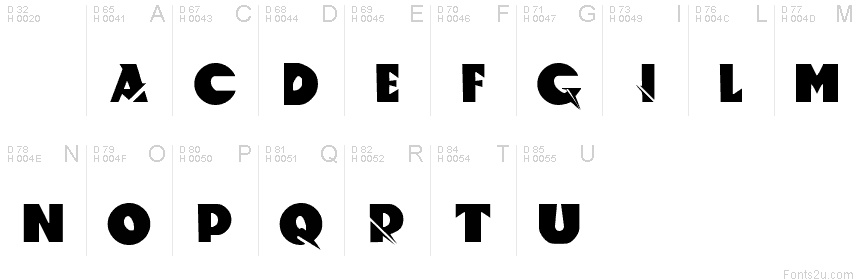
ACCELERATOR
Accelerator font by SnatchSoft is a free techno display typeface that looks like it’s been cut out of matte metal at full throttle. Chunky letterforms are slashed with sharp diagonal cuts that slice through the black shapes, creating a sense of motion even when the text is standing still. The tight rhythm and bold weight make every word hit like a logo, turning simple titles into something that feels fast, mechanical, and unapologetically loud.
Using Accelerator, this free font comes into its own on racing posters, esports branding, sci‑fi book covers, YouTube thumbnails, event flyers, and bold merch graphics. Those aggressive angles read clearly at large sizes, so let the letters breathe with generous spacing and keep copy short and punchy. Pair it with a clean geometric sans for body text to balance its heavy, adrenaline‑charged presence.